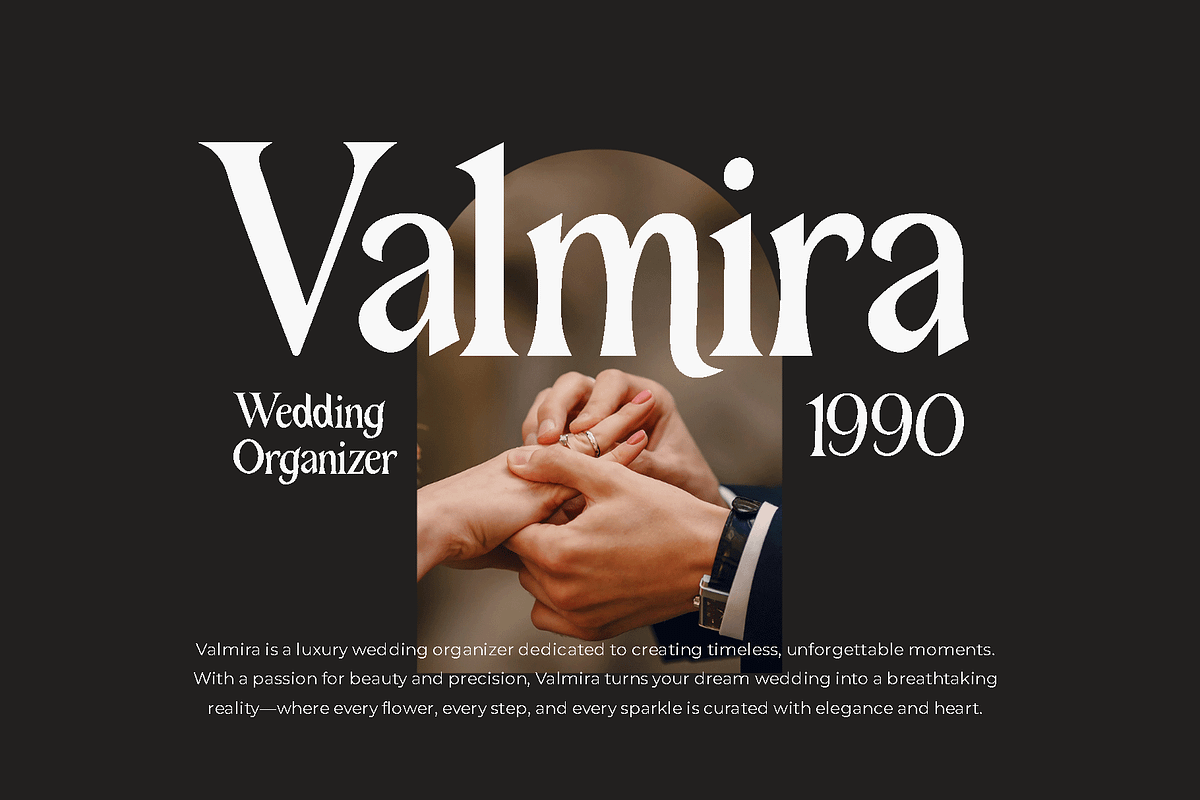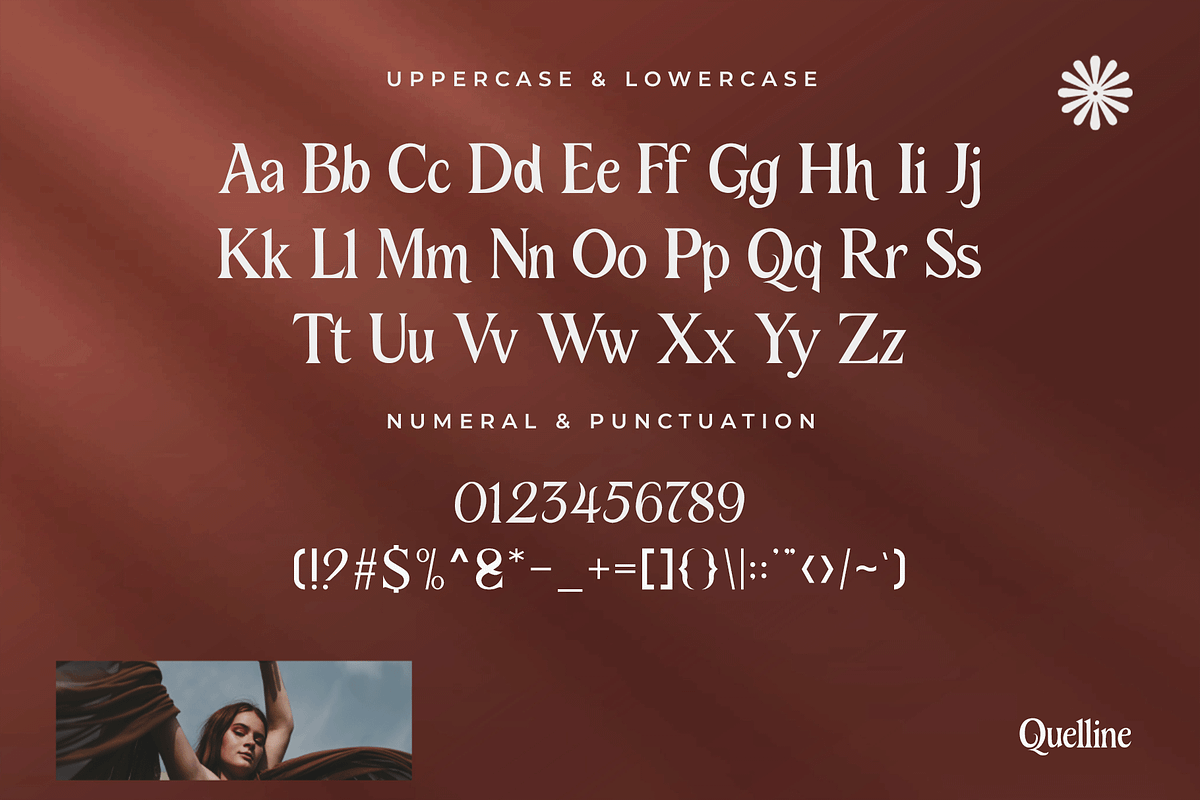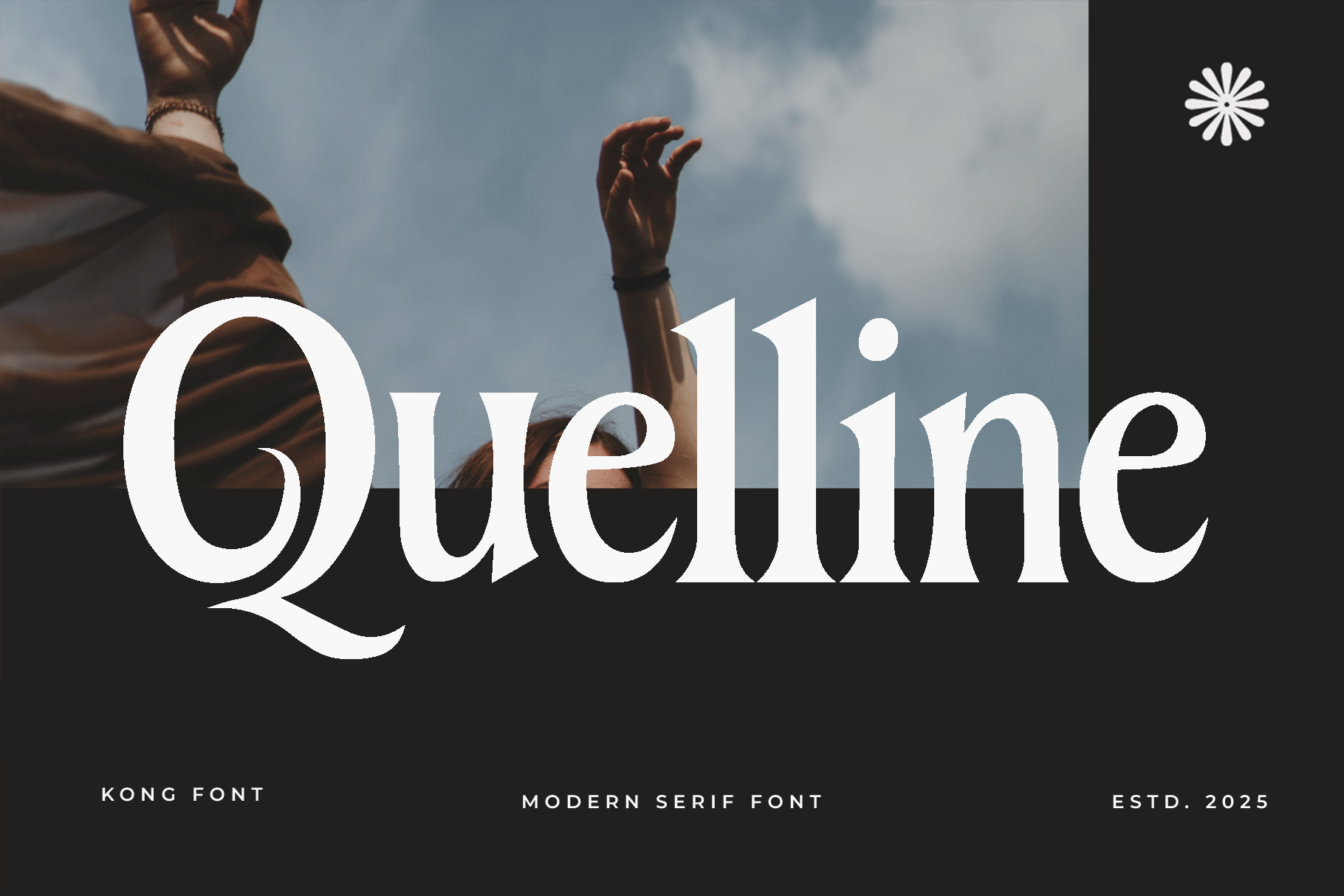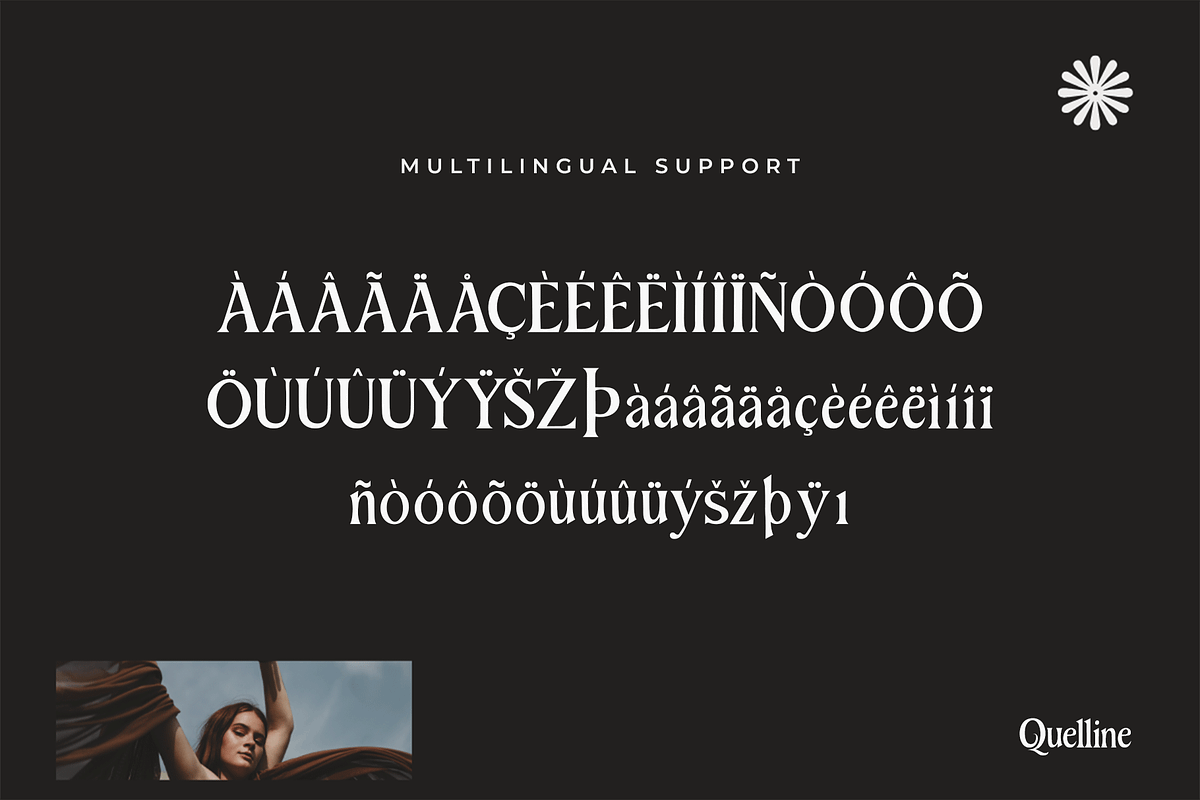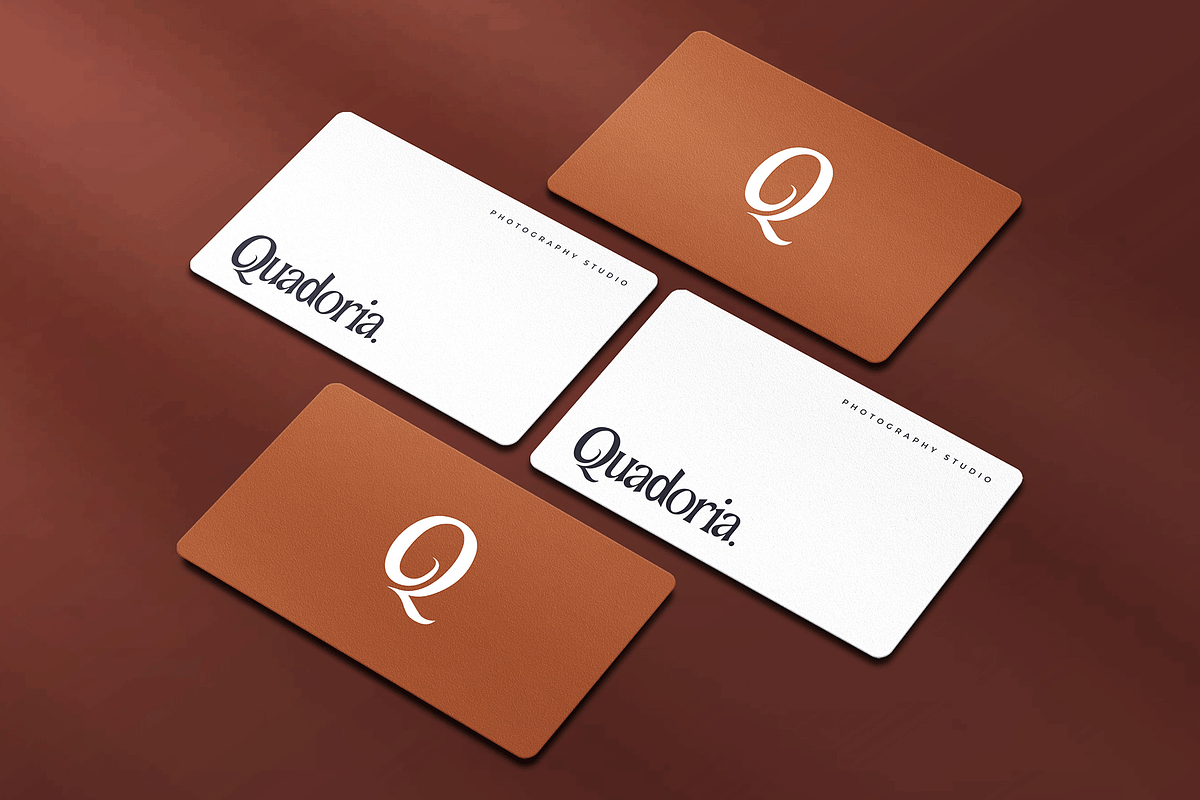
Quelline – A Modern Serif Font
Say hello to Quelline, a modern serif font that exudes timeless elegance with a contemporary edge. With its refined curves, sharp serifs, and balanced letterforms, Quelline is designed to bring sophistication and clarity to your creative projects.
Perfect for editorial design, branding, logos, invitations, and more, Quelline is both stylish and functional. It shines in high-contrast layouts and gives your text a professional, upscale appearance. From luxury packaging to magazine spreads, Quelline is versatile enough to make a lasting impression in any context.
Complete with multilingual support, punctuation, and clean ligatures, Quelline is your essential serif for bringing modern elegance to your work.